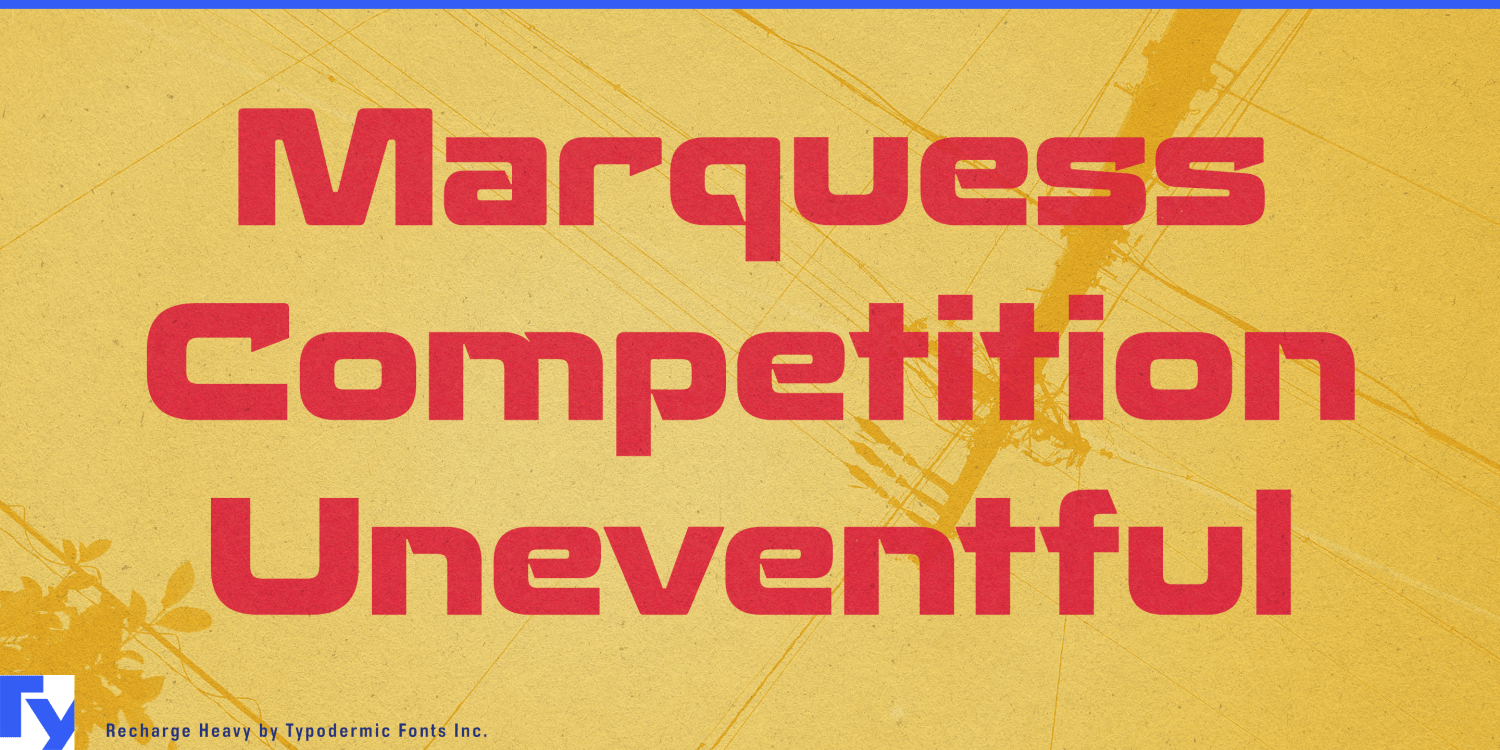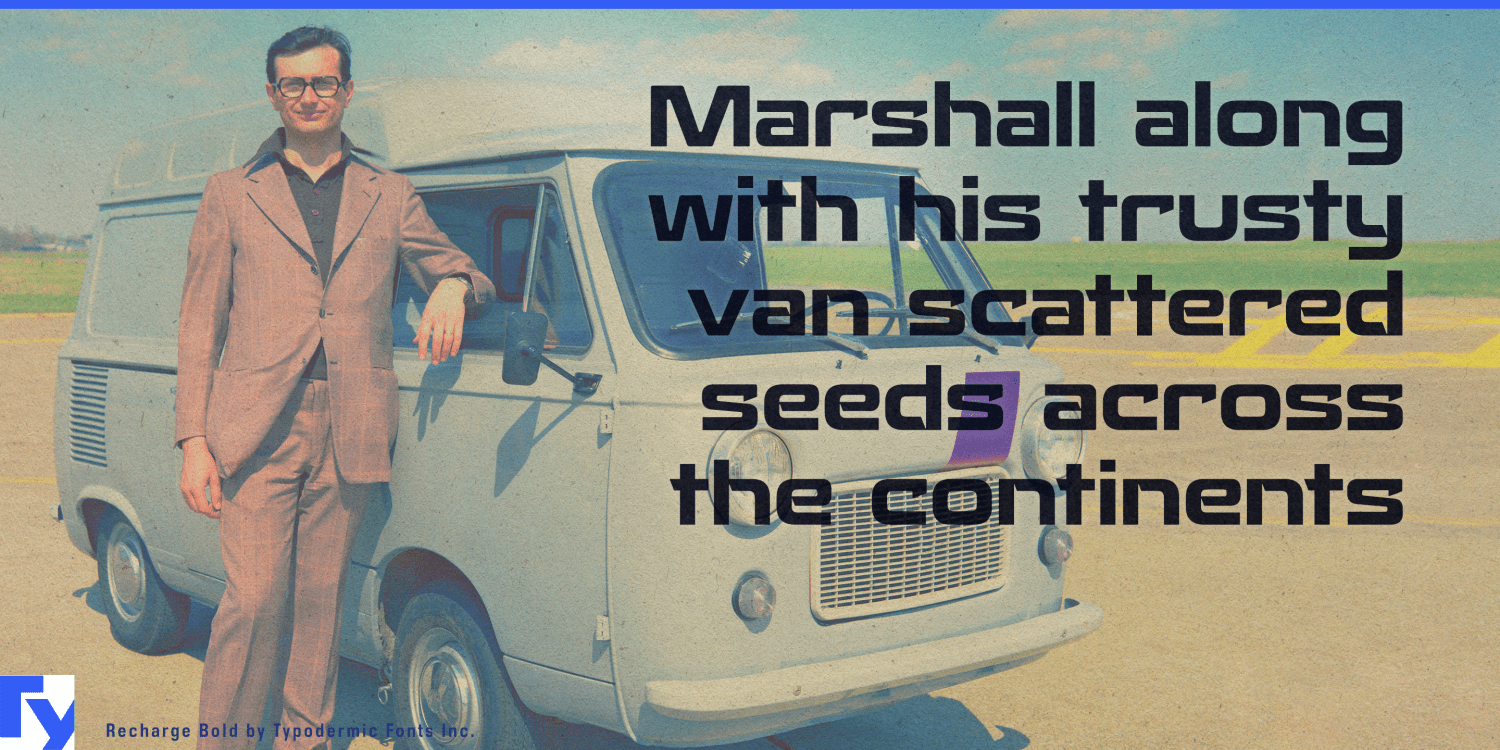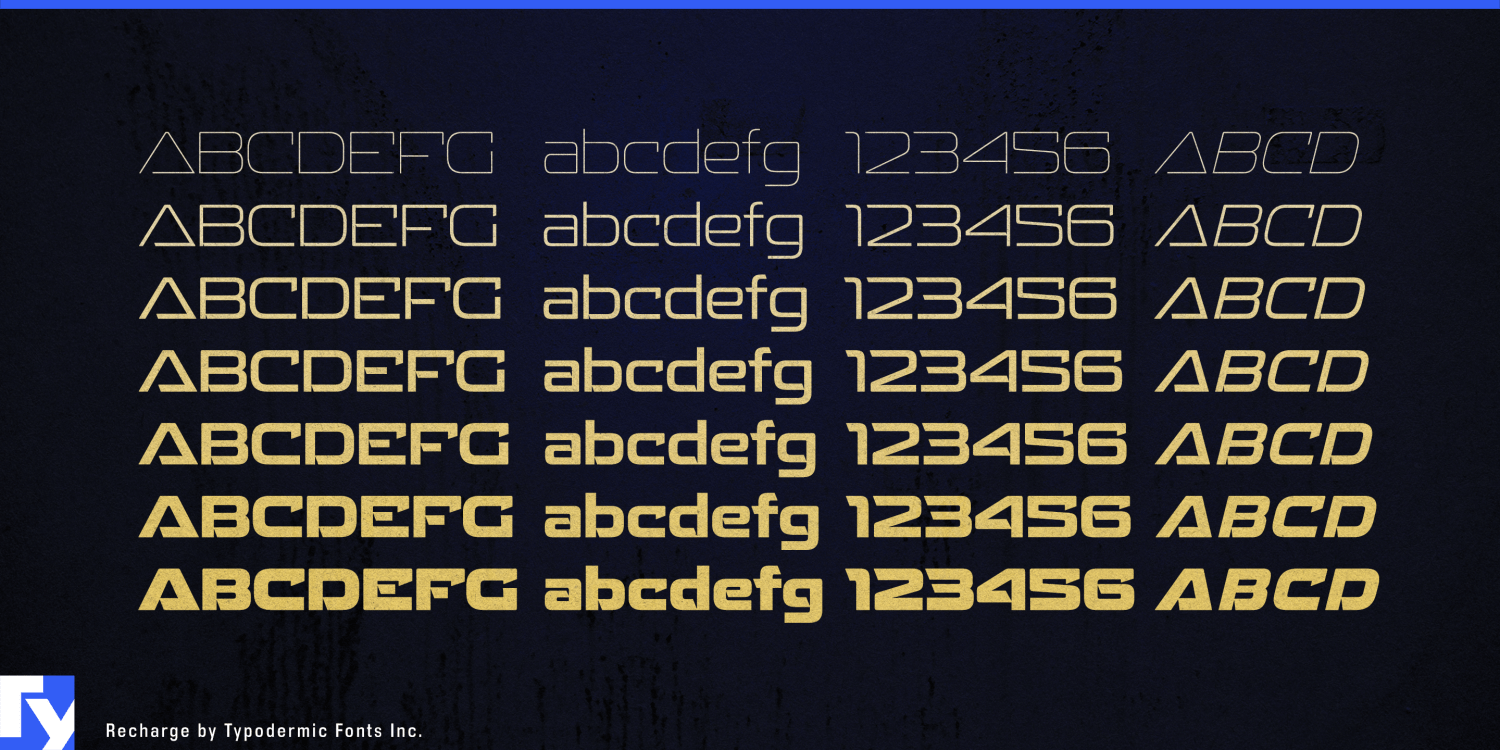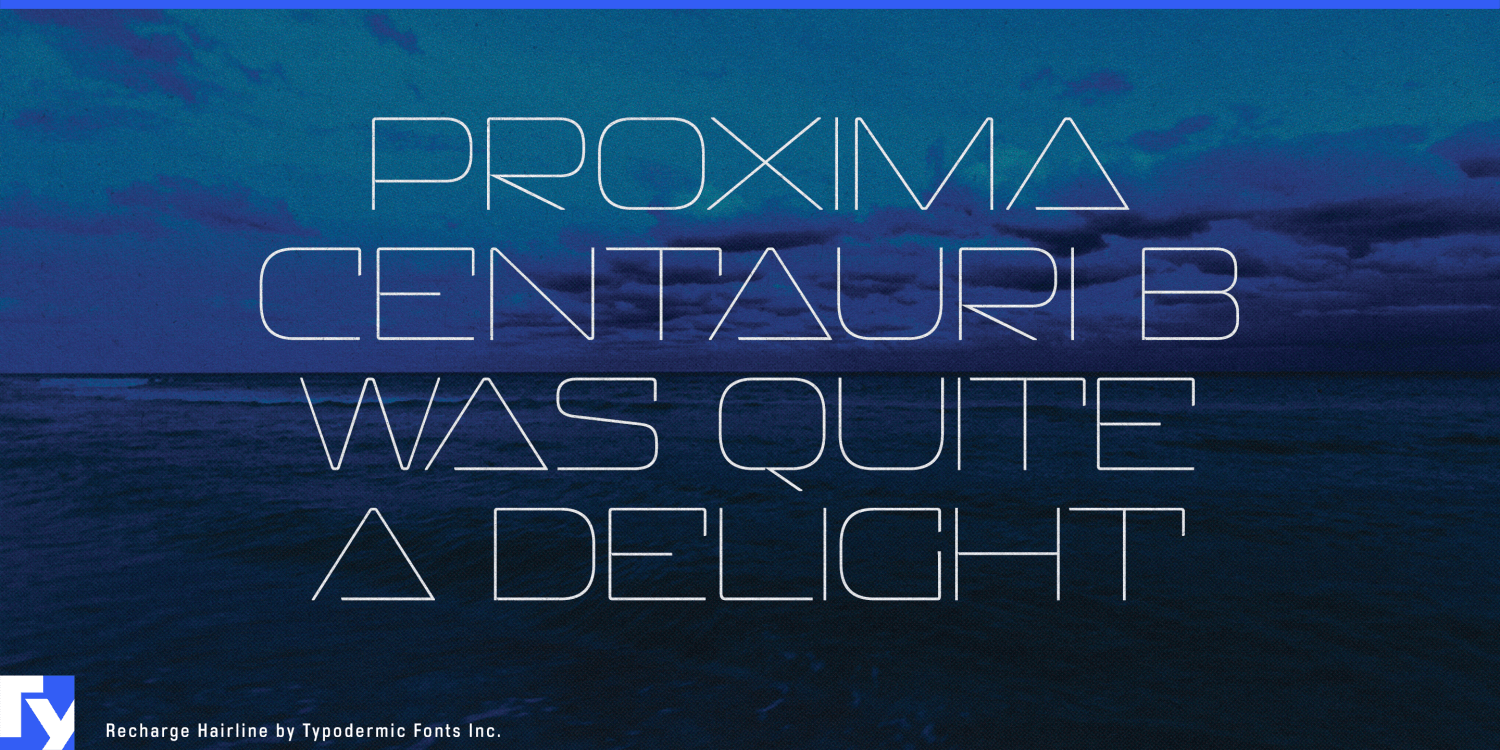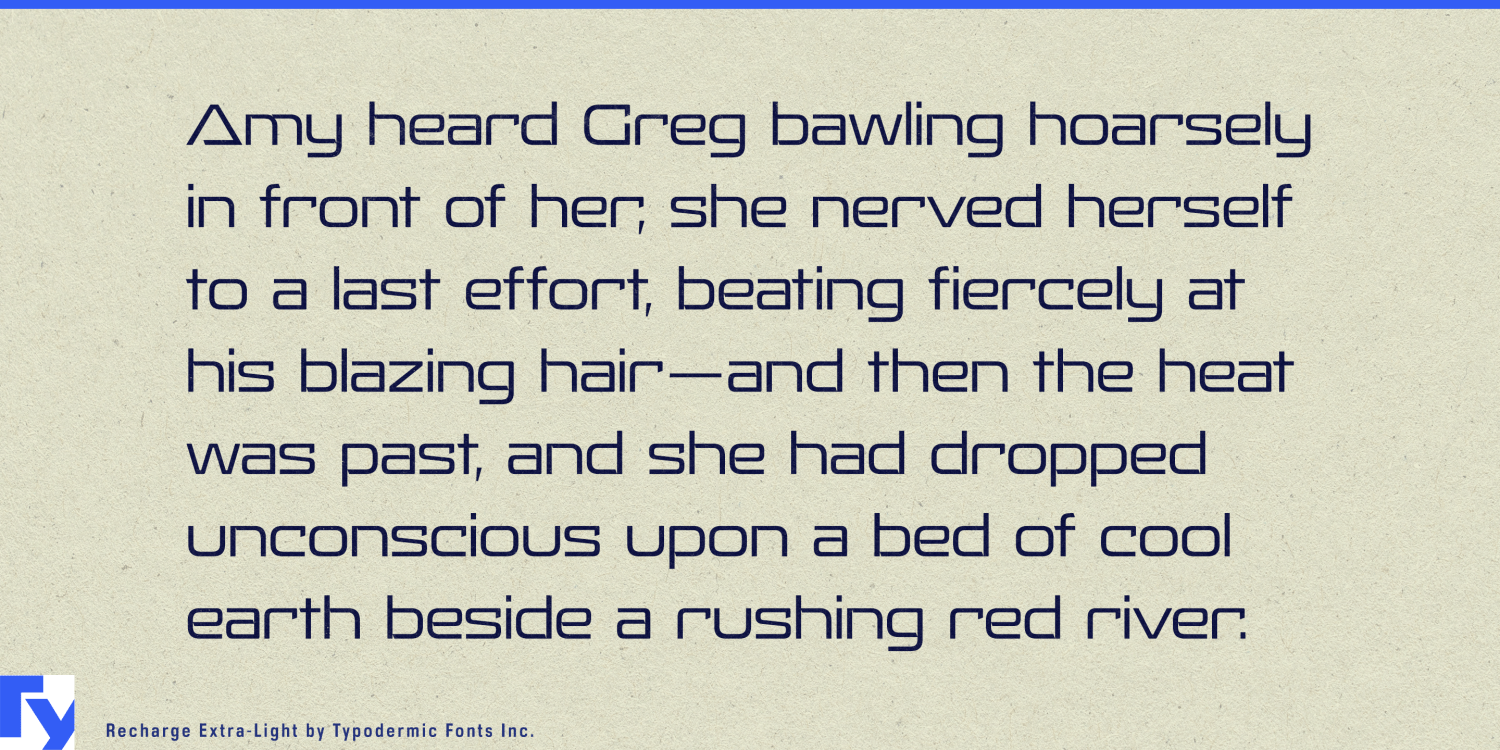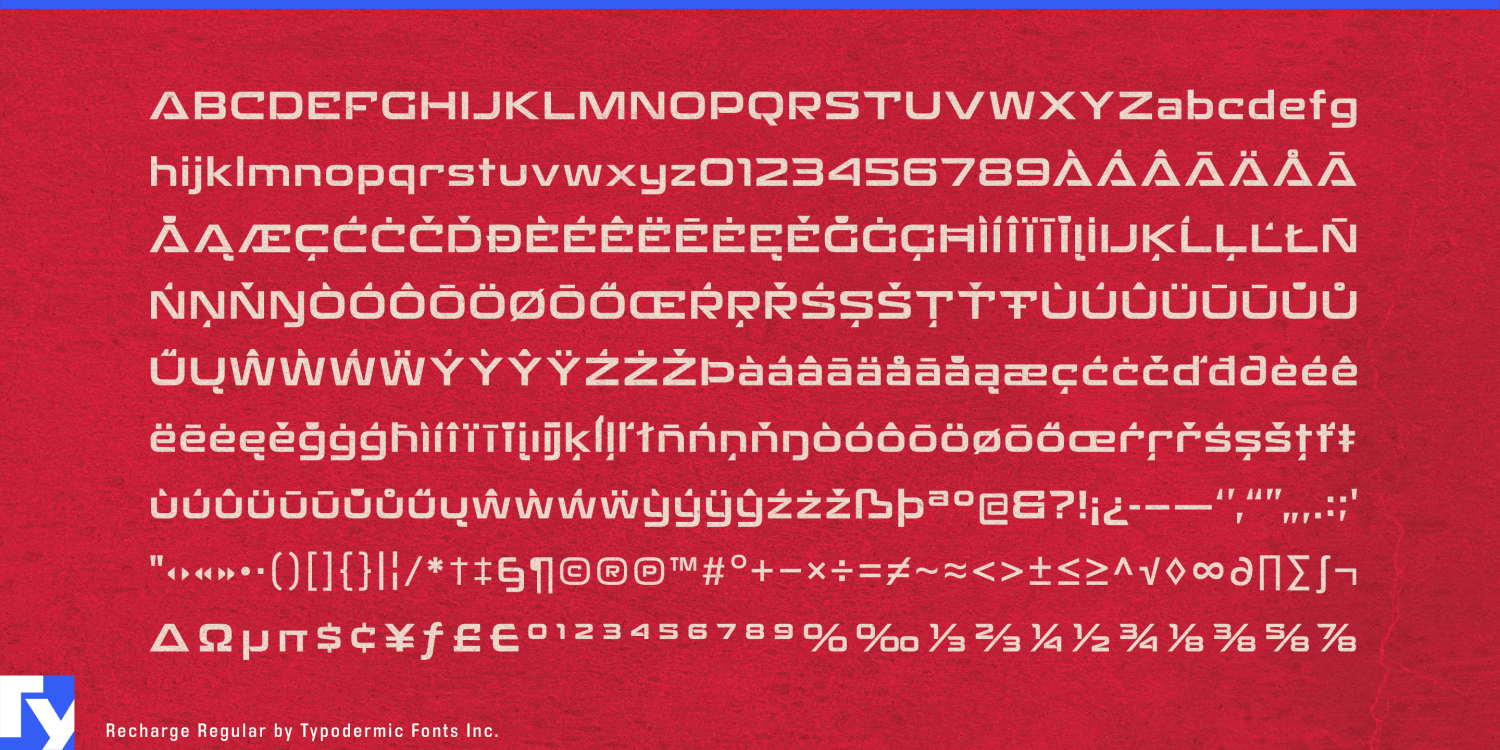
Recharge
Buy NowBrace yourself for a jolt of typographic energy with Recharge, the industrial powerhouse that’ll send your designs surging into overdrive! This is a high-voltage conduit for your creative current, ready to illuminate your message with megawatt brilliance.
Recharge’s broad, square design doesn’t just grab attention—it seizes it with the force of a lightning strike. Those uppercase letters? They’re not just characters; they’re transformers, converting your words into explosive headlines that crackle with intensity. But don’t let the high-amperage display fool you. The refined lowercase letters are precision-engineered conductors, delivering your body text with the clarity of a well-calibrated circuit. What really sets Recharge apart is its cutting-edge architecture. Those unusual angled stroke ends aren’t just design flourishes—they’re lightning rods, channeling raw typographic energy into every word. Whether you’re powering up a sports scoreboard, jump-starting an automotive ad campaign, or launching a space-age website, Recharge is your typography’s fusion reactor.
With seven weights and their italic counterparts, Recharge offers a full spectrum of typographic current. From the whisper of electromagnetic fields in the lighter weights to the thunderous roar of the boldest styles, you’ll find the perfect voltage for every design challenge. Recharge speaks the language of power across borders, fluently covering most Latin-based European writing systems. From Afrikaans to Zulu, your message will resonate with the force of a thousand-watt amplifier, ensuring your designs light up screens and pages in any language.